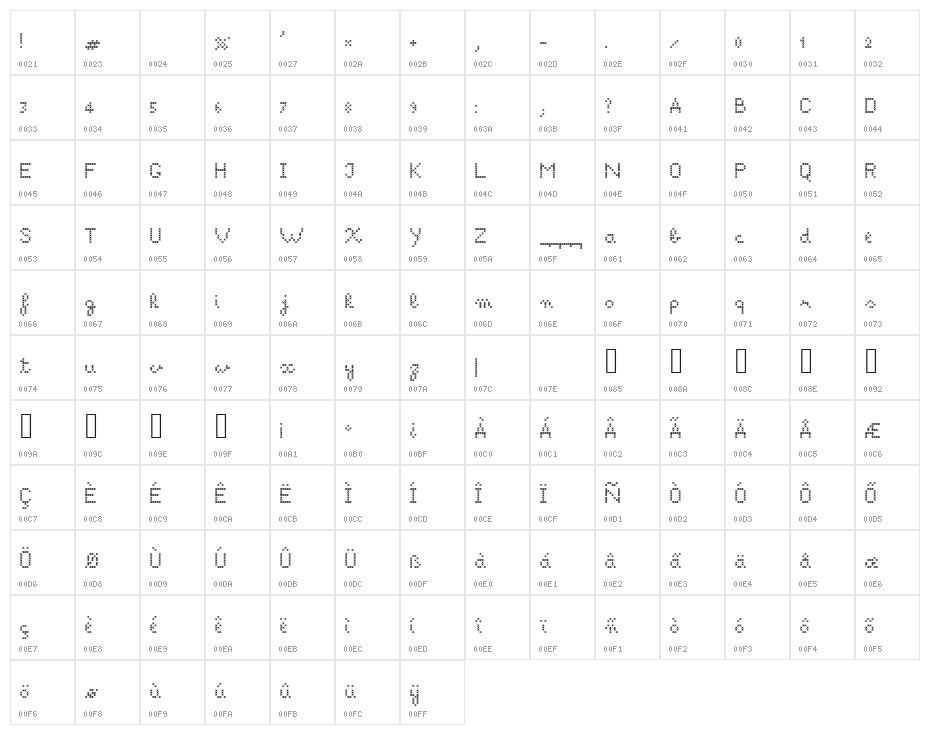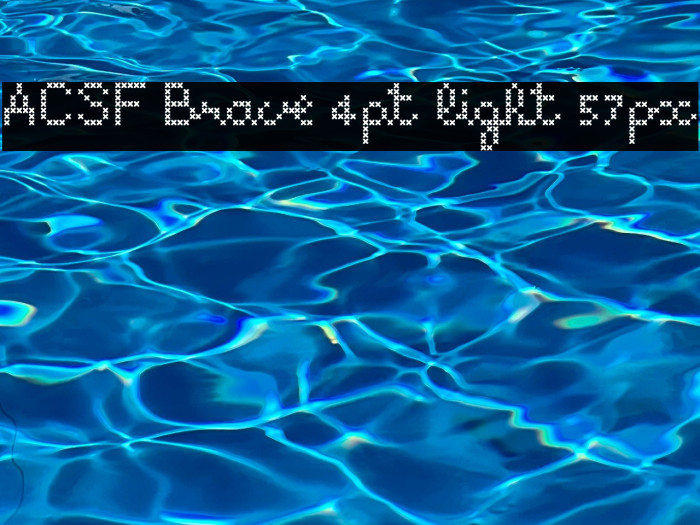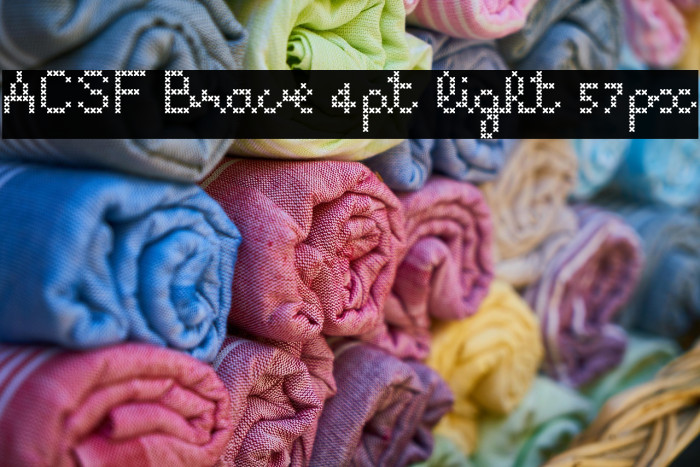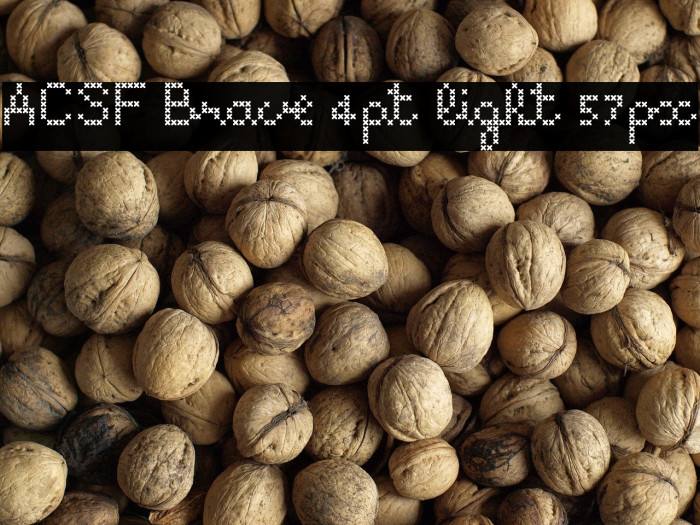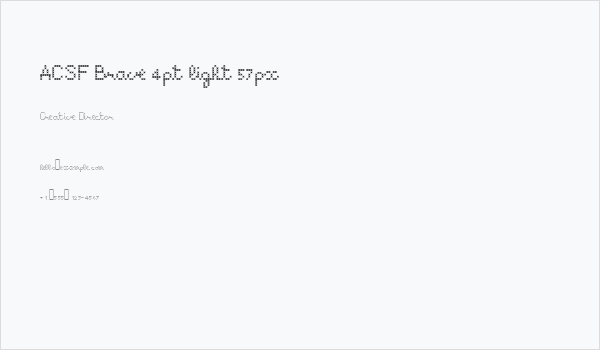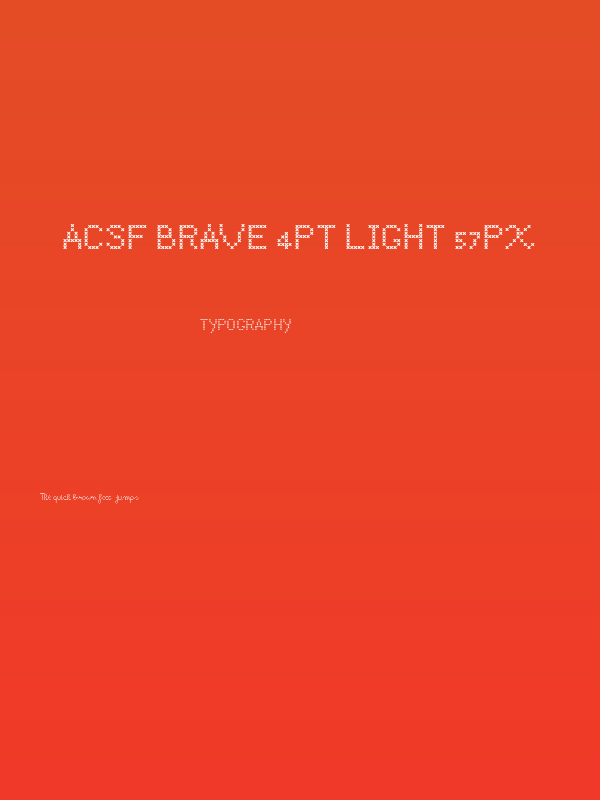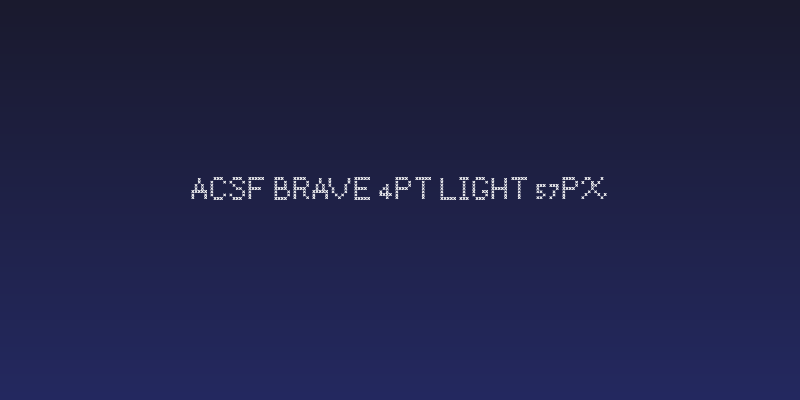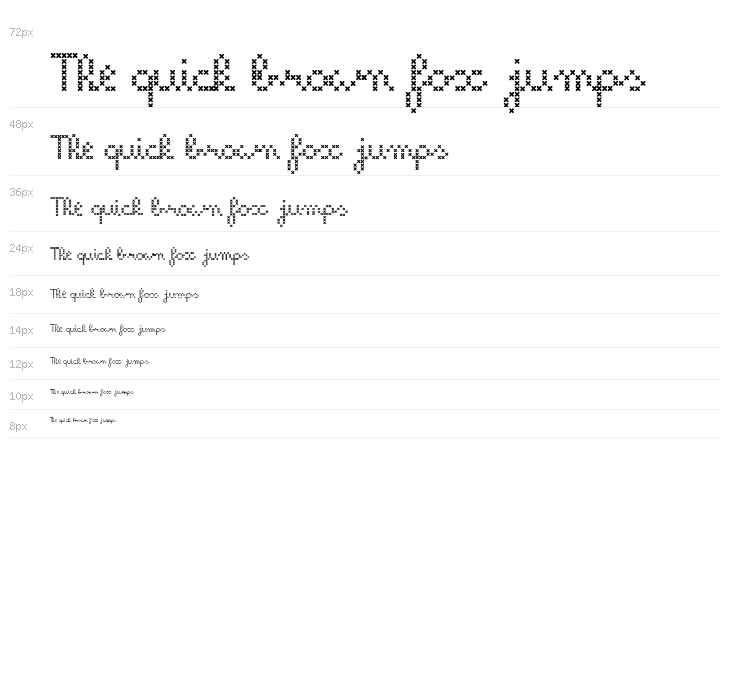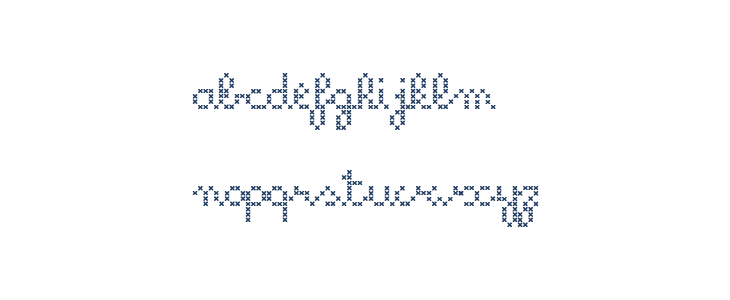
ACSF Brave 4pt light 57px Font
ACSF Brave 4pt light 57px Description
This font features a unique cross-stitch pattern, giving it a handcrafted and decorative appearance. Each character is composed of small 'x' shapes, creating a textured and intricate look. The font maintains a consistent structure across uppercase, lowercase, numbers, and special characters, making it visually cohesive. Its playful and artistic style is reminiscent of traditional embroidery, offering a nostalgic and creative vibe. The design is both distinctive and eye-catching, suitable for projects that require a touch of whimsy and charm.
| Use Case | Logos, Headlines, Artistic designs |
| Proposed Projects | Ideal for craft projects, greeting cards, DIY invitations, and any design requiring a handmade aesthetic. |